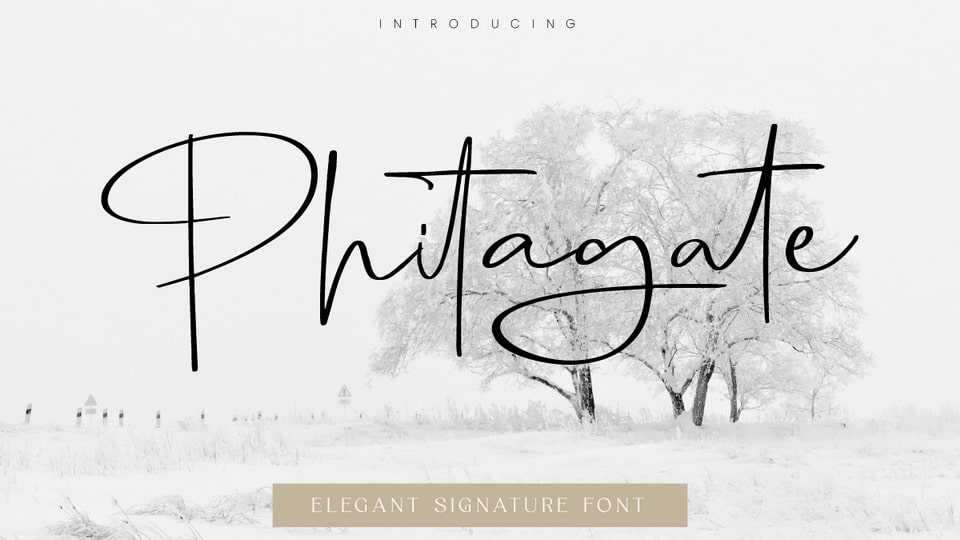
Download Phitagate font, a signature script typeface with beautiful strokes. Phitagate font is impressive and features a clean and elegant font, professionally shaped, and as a result, it will easily match a variety of creations that require a different touch.